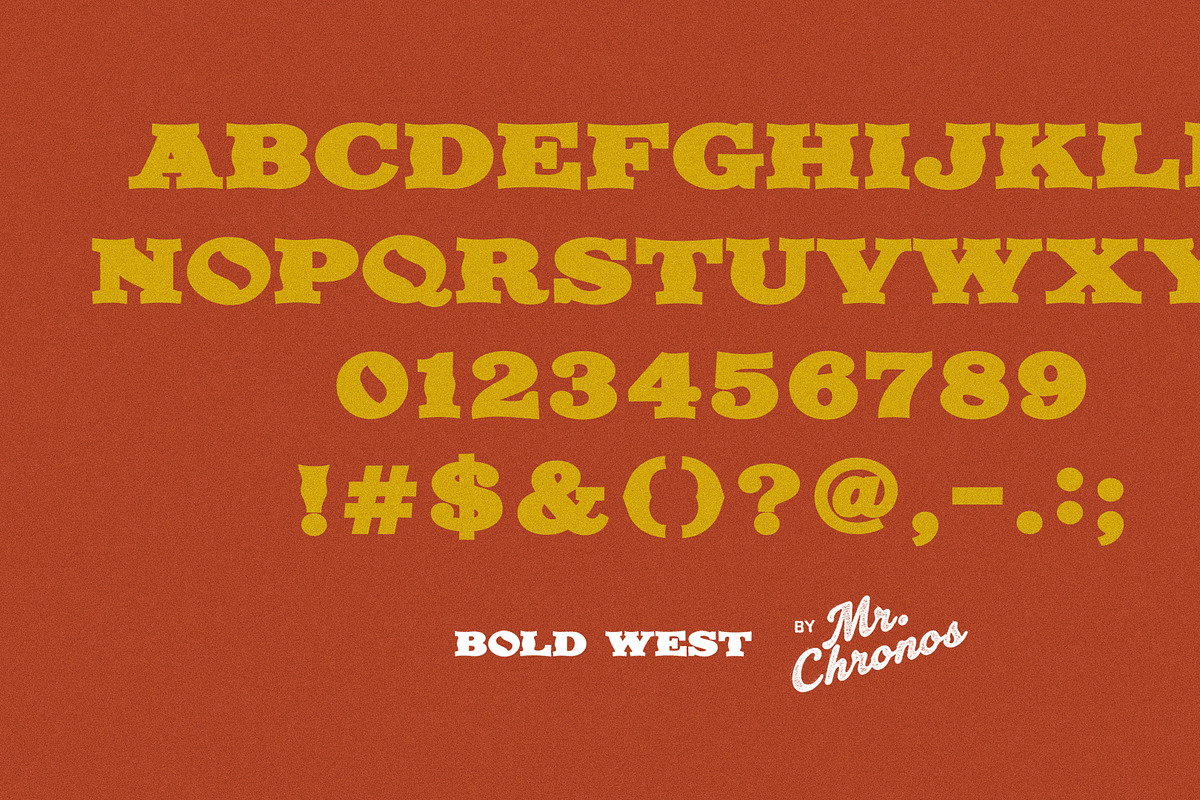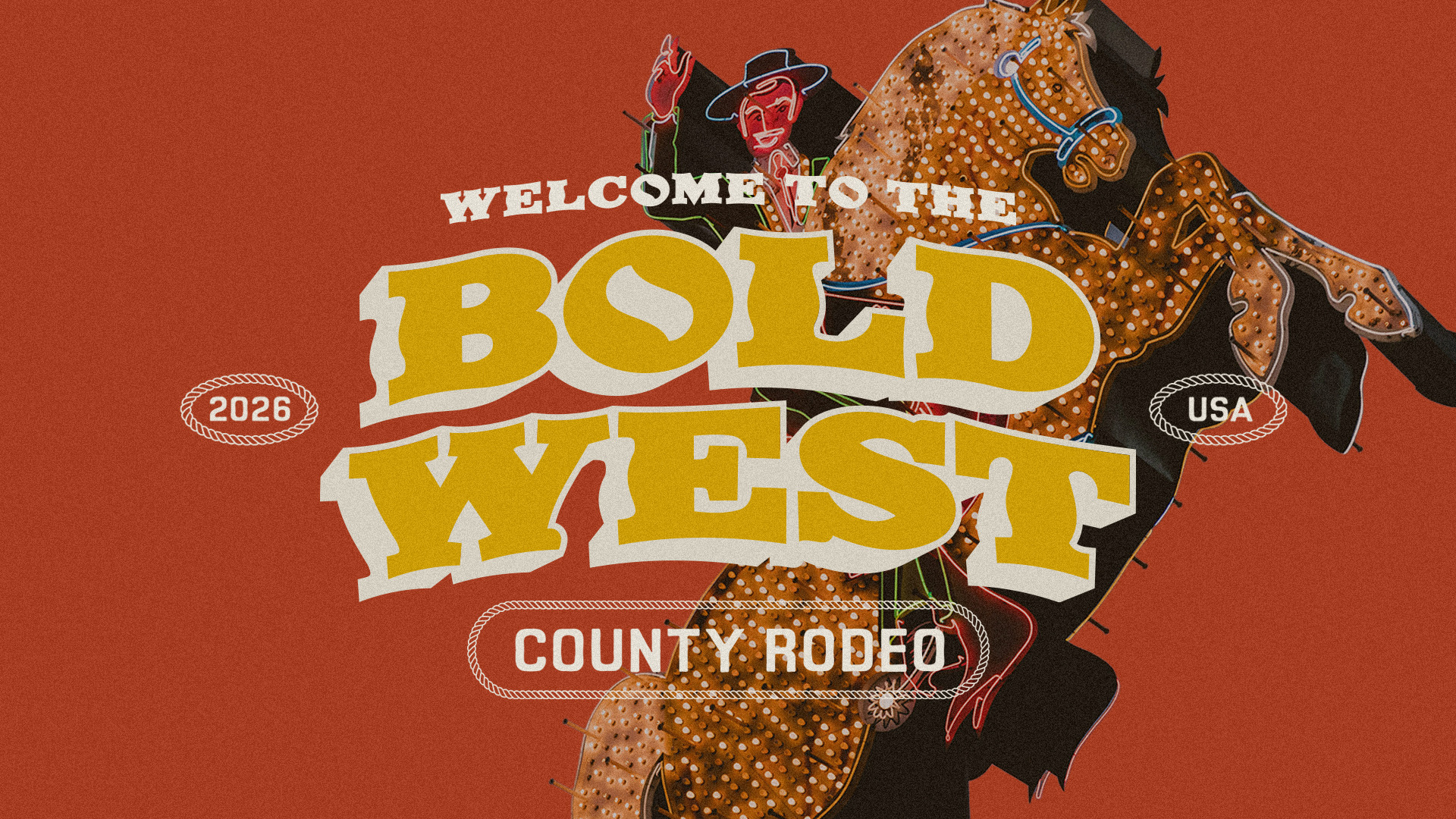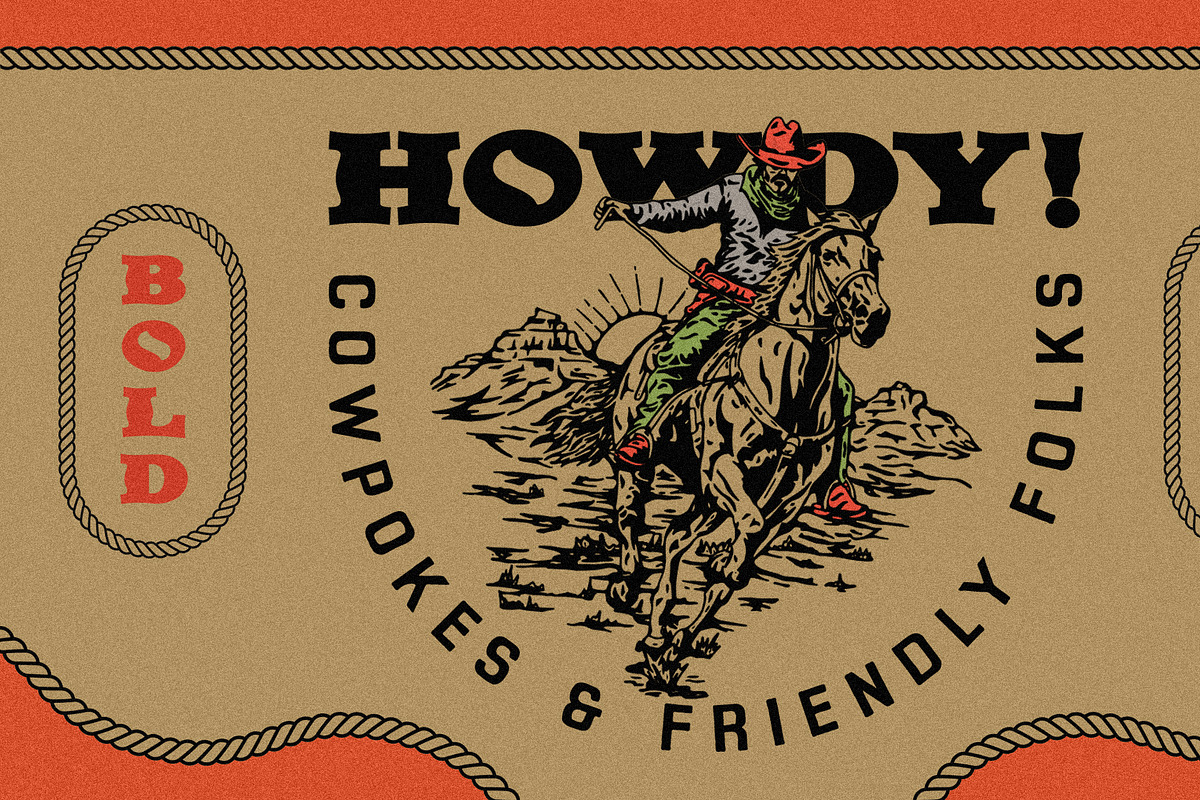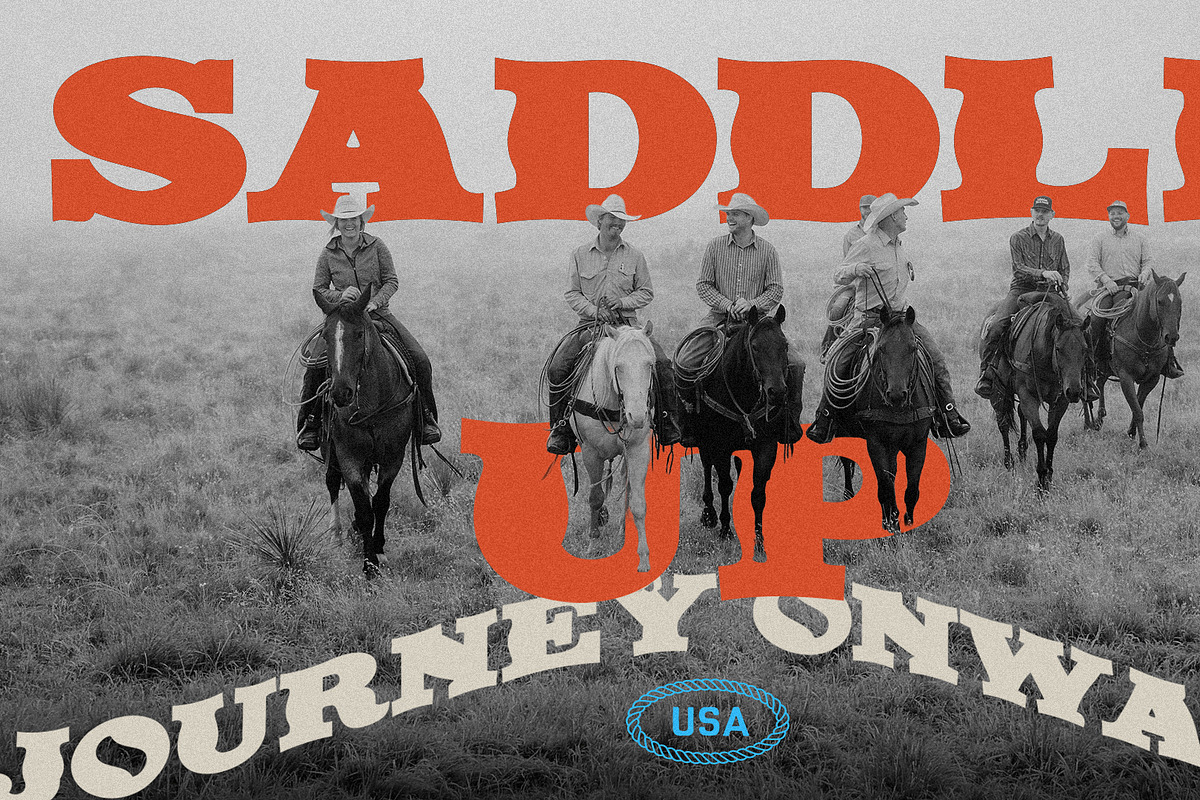
BOLD WEST - DISPLAY FONT
Yeehaw. Bold West is a big-buckle Western display with slab-serif swagger and a drop shadow tall enough to rope a steer. Wanted posters, rodeo bills, honky-tonk marquees; this one rode straight out of the frontier and never looked back.